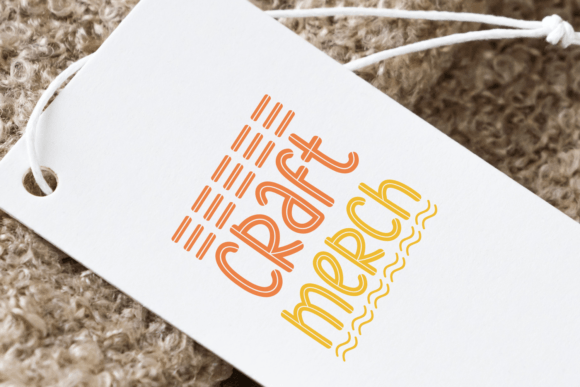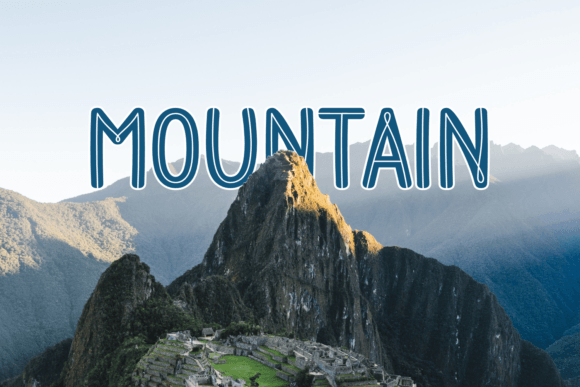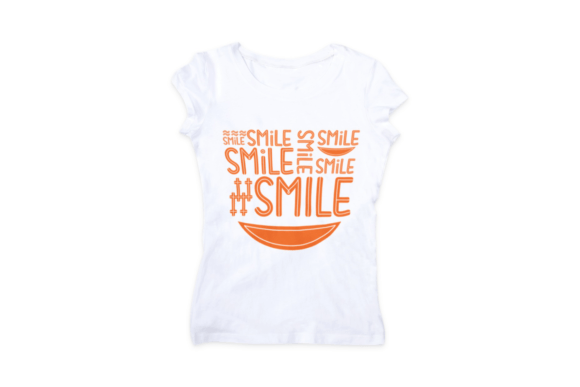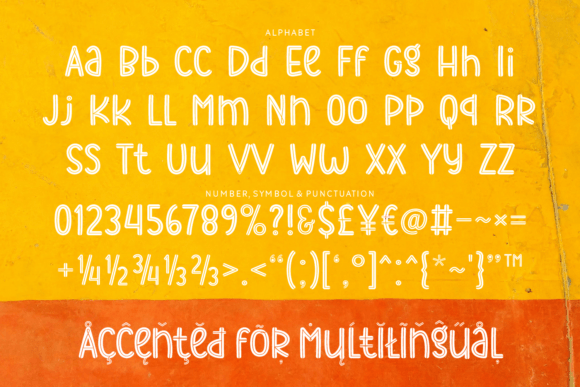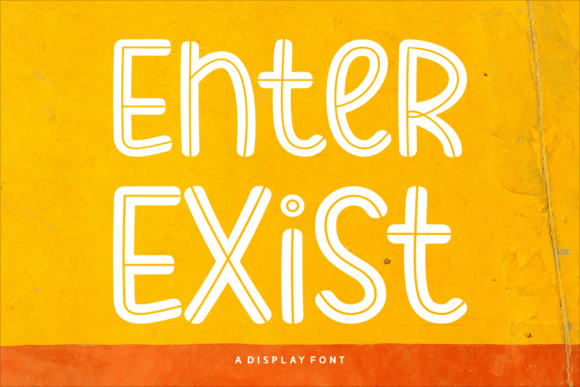
Introducing Enter Exist: Elevate Your Typography Designs with this Charming Inlined Display Font
Are you tired of using the same old fonts in your designs? Do you want to add a touch of personality and whimsy to your typography? Look no further than Enter Exist, a beautiful inlined display font that’s sure to take your creations to the next level. In this article, we’ll dive into the world of Enter Exist, exploring its features, benefits, and uses, and showing you how this lovely typeface can add character to any design.
What is Enter Exist?
Enter Exist is a stunning inlined display font that’s perfect for designers and crafters looking to add a touch of elegance and sophistication to their work. With its unique inlined design, this font is sure to stand out from the crowd and make your designs pop. Whether you’re creating posters, headlines, fabric prints, cards, invitations, or any other type of visual project, Enter Exist is the perfect choice.
Key Features of Enter Exist
• Unique Inlined Design: Enter Exist’s inlined design gives it a distinctive look that’s both modern and elegant.
• Highly Versatile: This font is perfect for a wide range of design projects, from posters and headlines to fabric prints and invitations.
• Easy to Read: Despite its unique design, Enter Exist is highly legible, making it perfect for use in a variety of contexts.
• Scalable: This font is designed to look great at any size, from small captions to large headlines.
Benefits of Using Enter Exist
So why should you choose Enter Exist for your design projects? Here are just a few benefits of using this lovely typeface:
• Adds Character to Your Designs: Enter Exist’s unique design is sure to add a touch of personality to any project.
• Elevates Your Typography: This font is designed to take your typography to the next level, making your designs stand out from the crowd.
• Perfect for Branding and Marketing: Enter Exist’s elegant design makes it perfect for use in branding and marketing materials, such as logos, business cards, and brochures.
• Great for Crafters and DIY Enthusiasts: This font is also perfect for crafters and DIY enthusiasts who want to add a personal touch to their projects.
Using Enter Exist in Your Designs
So how can you use Enter Exist in your designs? Here are a few ideas to get you started:
• Posters and Flyers: Use Enter Exist to create eye-catching posters and flyers that grab attention.
• Headlines and Titles: This font is perfect for use in headlines and titles, adding a touch of elegance and sophistication to your designs.
• Cards and Invitations: Enter Exist is a great choice for cards and invitations, adding a personal touch to your correspondence.
• Branding and Packaging: Use this font to create a cohesive brand identity that stands out from the crowd.
Tips and Tricks for Getting the Most Out of Enter Exist
Here are a few tips and tricks for getting the most out of Enter Exist:
• Experiment with Different Sizes and Colors: Don’t be afraid to experiment with different sizes and colors to find the perfect look for your design.
• Pair with Other Fonts: Enter Exist pairs well with a variety of other fonts, so don’t be afraid to get creative and try out different combinations.
• Use it for Body Text: While Enter Exist is perfect for headlines and titles, it can also be used for body text in certain contexts, such as in magazines or blogs.
In conclusion, Enter Exist is a charming inlined display font that’s perfect for designers and crafters looking to add a touch of personality and elegance to their work. With its unique design, versatility, and ease of use, this font is sure to take your typography designs to the next level. So why wait? Download Enter Exist today and start creating stunning designs that stand out from the crowd!